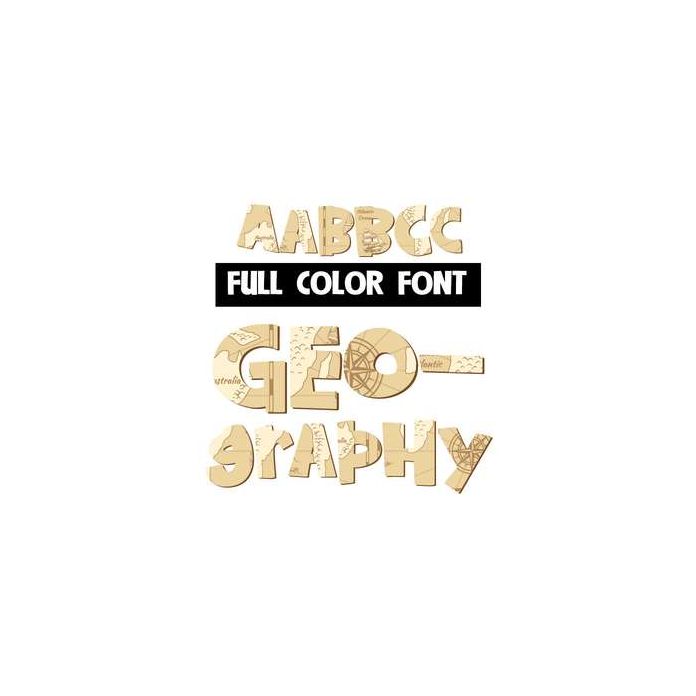
This full-color font features a world map on each letter. This font works best for titles, displays, posters and more. Please note color fonts will show as black in non compatible programs. This font type is compatible with Silhouette Studio.